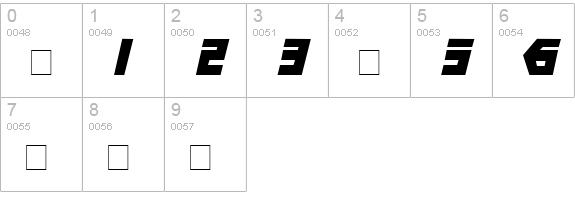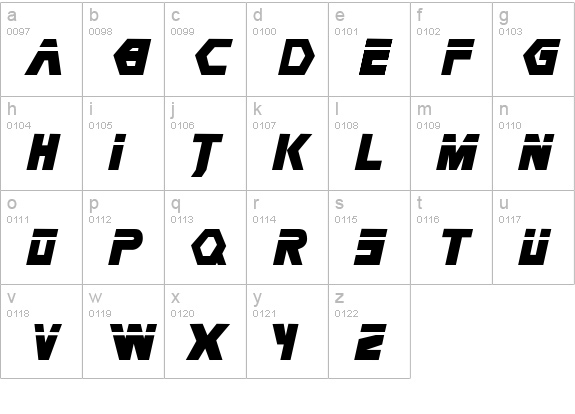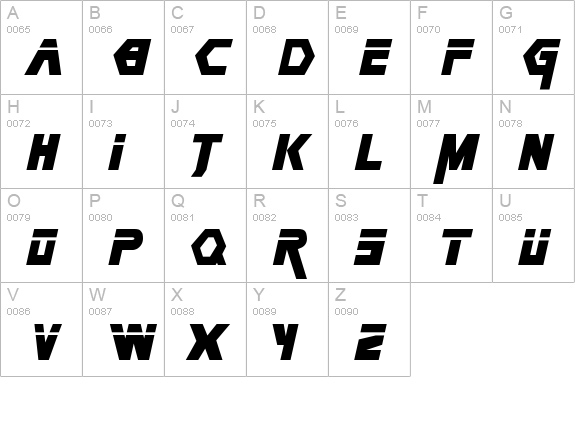
Metal Gear Font Details
Metal Gear font is a bold and futuristic typeface that exudes strength and modernity. With its sharp edges and sleek design, this font is perfect for projects that require a strong and impactful visual presence. The unique letterforms of Metal Gear font make it stand out from the crowd and add a touch of sophistication to any design. Best of all, Metal Gear font is available for free download at FontsMarket.com. This means you can easily access this striking typeface and use it in your projects without any cost. Whether you're designing a poster, logo, or website, Metal Gear font is sure to make a bold statement and leave a lasting impression. Download it today and unleash the power of this stunning font in your creative endeavors.